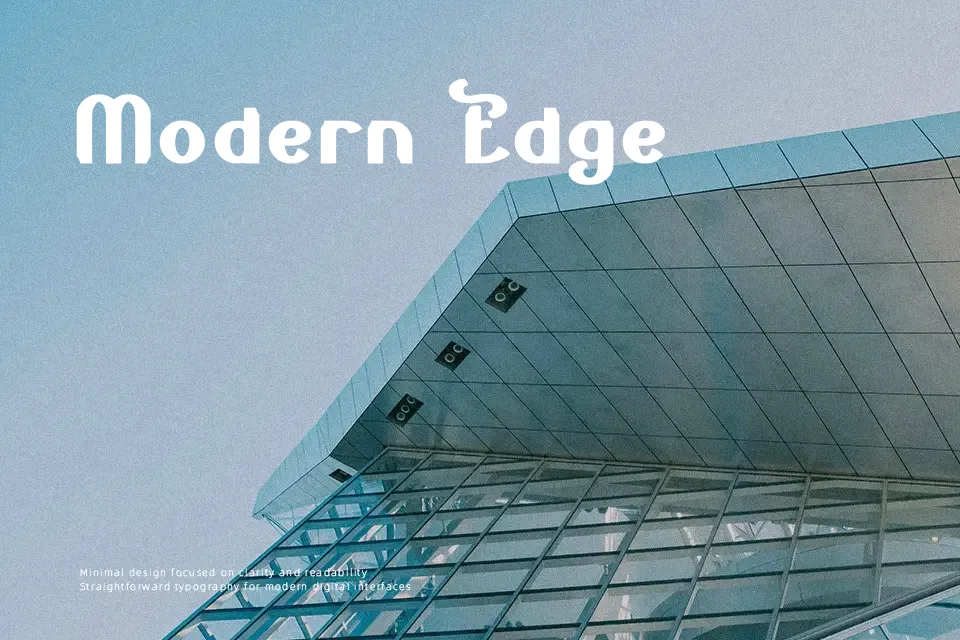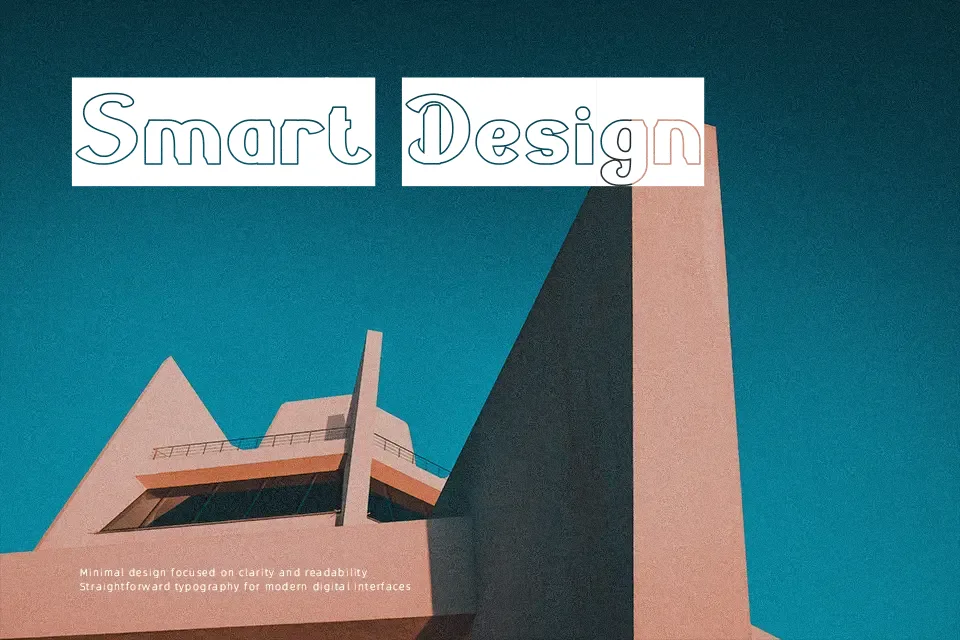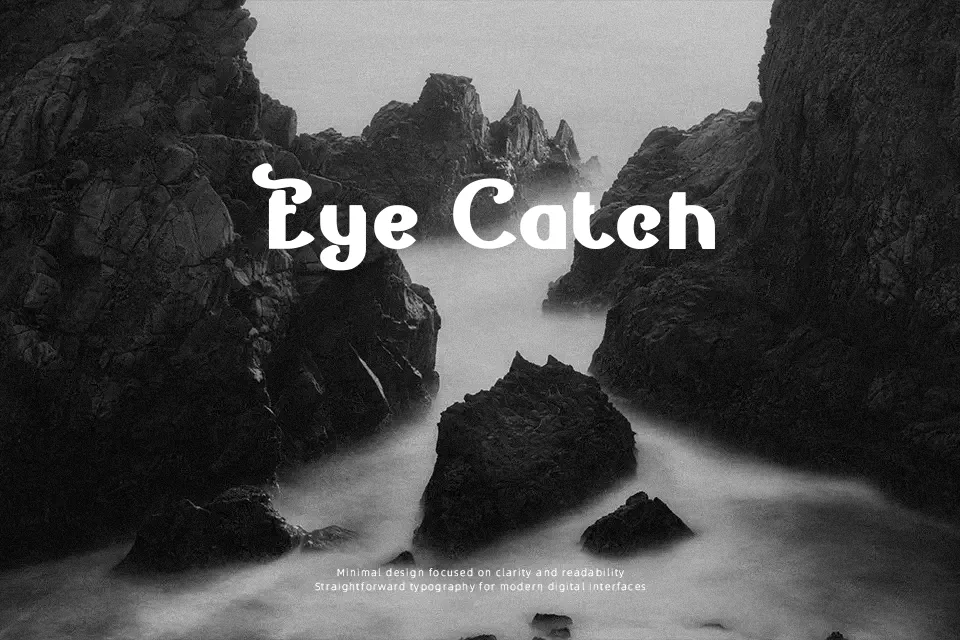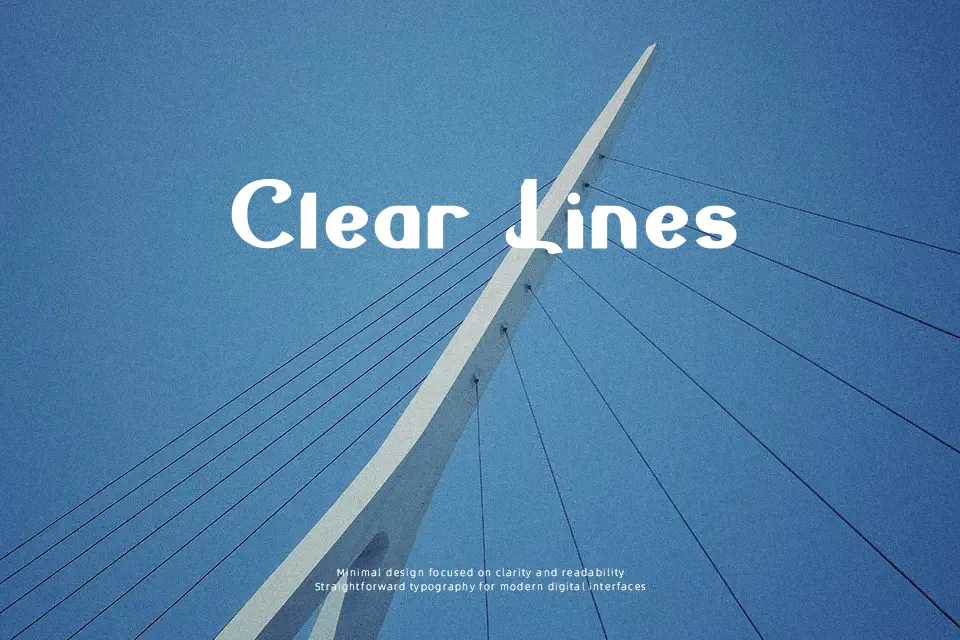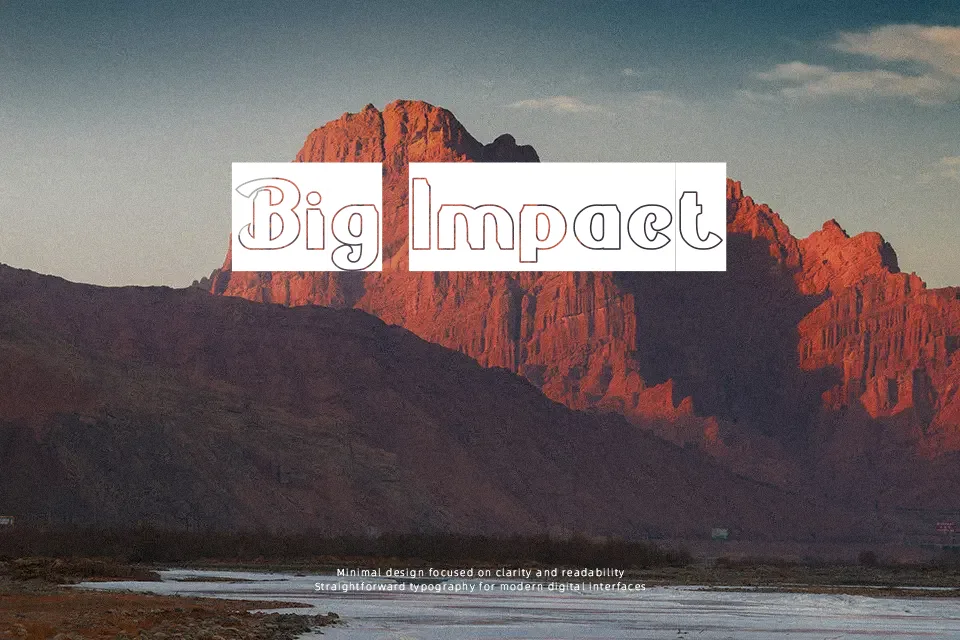
The Revolutions Font
Designed by weknow
The Revolutions Font establishes immediate visual weight through robust display structures and inventive geometric contours. Heavy outer strokes combine with open internal counters to give each glyph a punchy, mechanical rhythm. Character spacing remains moderately compact, preserving cohesive silhouettes across short titles without causing letter collisions. The letterforms maintain dependable legibility when rendered in prominent headlines, banner graphics, and editorial titling. However, the heavy stroke density and decorative framing reduce comfort during continuous reading, making the typeface poorly suited for dense body copy or small interface elements. In practical design settings, the font operates at its peak when isolated as a dominant typographic centerpiece.
Best For: music festival posters, streetwear apparel graphics, website hero headlines
Not Ideal For: long paragraph text, small interface labels, dense editorial layouts
Perfect for advertising, headline, and logo, with a bold and decorative style.